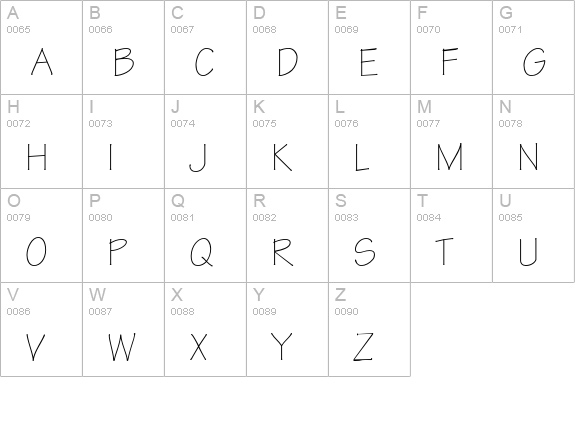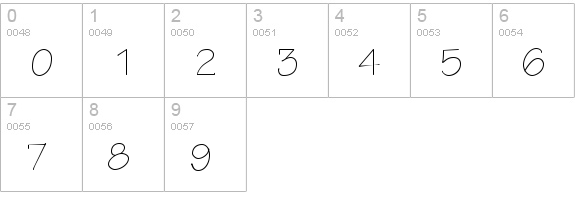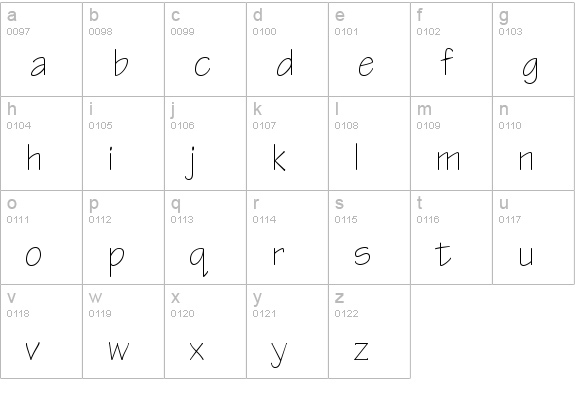
Tekton Pro Light Font Details
Tekton Pro Light is a refined, elegant variant in the Tekton typeface family \xE2\x80\x94 well suited to elegant body text, refined sub-headings, and luxury branding.
Tekton Pro Light is a visually stunning and versatile font that effortlessly combines elegance with a touch of playfulness. Its clean and streamlined design makes it perfect for a wide range of creative projects, including logos, branding, posters, and social media graphics. With its light and graceful strokes, Tekton Pro Light exudes a sense of modernity and sophistication. The carefully crafted letterforms are imbued with a sense of balance and harmony, making it easy on the eyes and ensuring readability across various mediums. One of the most appealing aspects of Tekton Pro Light is that it is available for free. Yes, you read that right - this exceptional font can be freely downloaded at FontsMarket.com. This means that you can add a touch of professionalism and elegance to your work without breaking the bank. Whether you are a designer looking to enhance your portfolio or a small business owner seeking to elevate your brand, Tekton Pro Light is the perfect choice. Its versatility and timeless appeal make it suitable for a wide range of projects, from elegant wedding invitations to eye-catching packaging designs. So why wait? Take advantage of this fantastic opportunity to enhance your design projects with Tekton Pro Light. Download it for free at FontsMarket.com and unlock a world of possibilities for your creative endeavors.